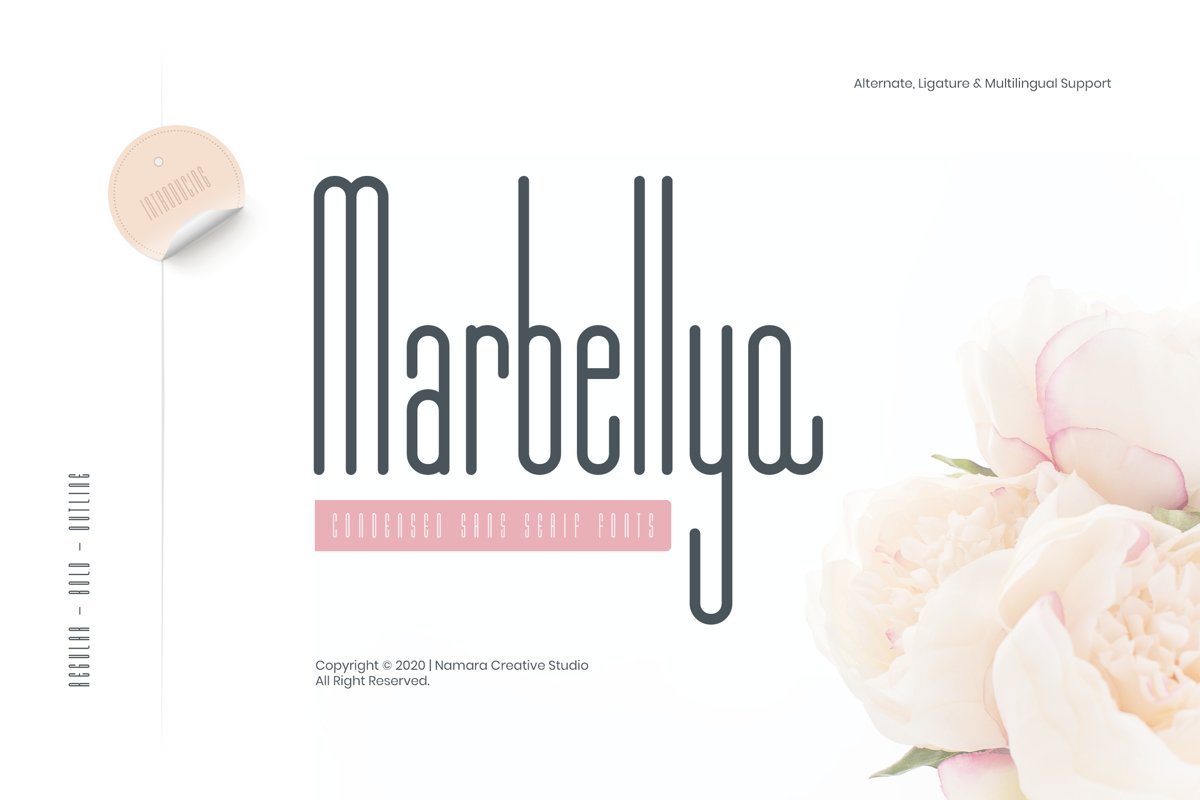
Marbellya Condensed Sans Serif Fonts
Marbellya Condensed Bold
Marbellya Condensed Bold Italic
Marbellya Condensed
Marbellya Condensed Italic
Marbellya Condensed Bold Outline
Marbellya Condensed Outline
Marbellya an Condensed Sans Serif Font with luxurious style, available in 6 styles : Regular, Italic, Outline, Bold, Bold Italic and Bold Outline. Included alternate, ligature and multilingual support. It's perfect for headlines, logos, quotes, packaging, magazine covers, editorial design, and many more project with suitable purpose!